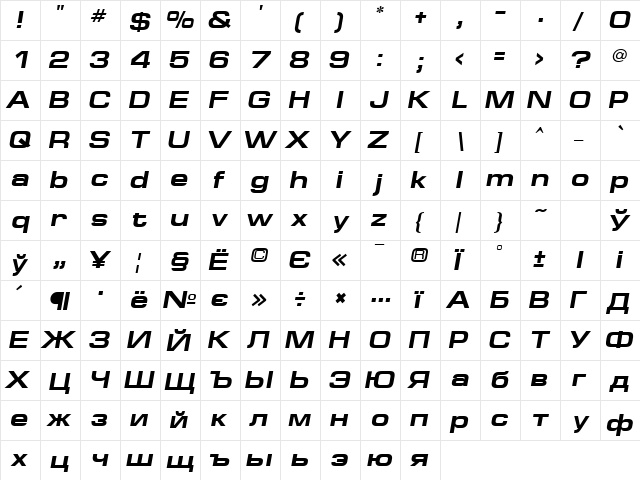
EuropeExt Bold Italic
Design Context for EuropeExt Typeface
EuropeExt offers clean, dependable letterforms without strong stylistic allegiance, making it a practical choice for designers who need flexibility. The slanted form adds forward momentum and visual energy. Its bold stroke weight gives it real presence on the page.
Pro Tip: Use EuropeExt for emphasis, pull quotes, and subheadings where its slanted energy can add rhythm to the layout.